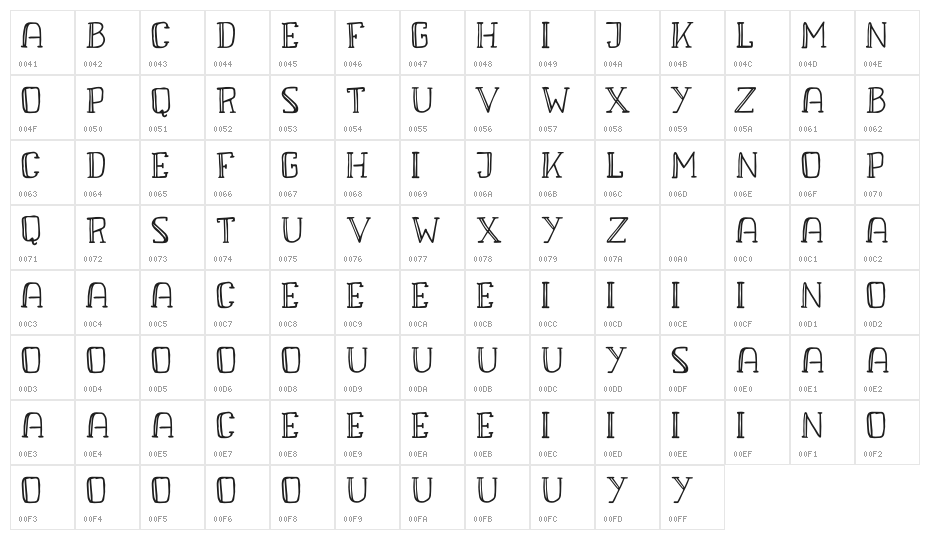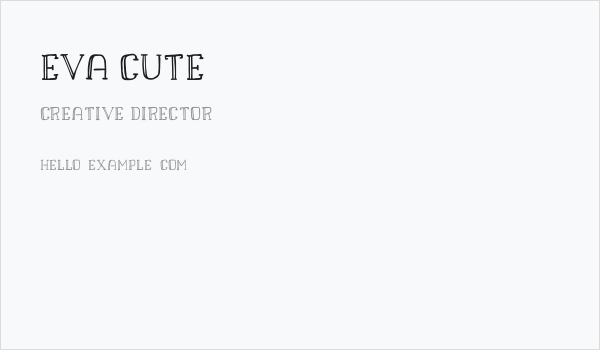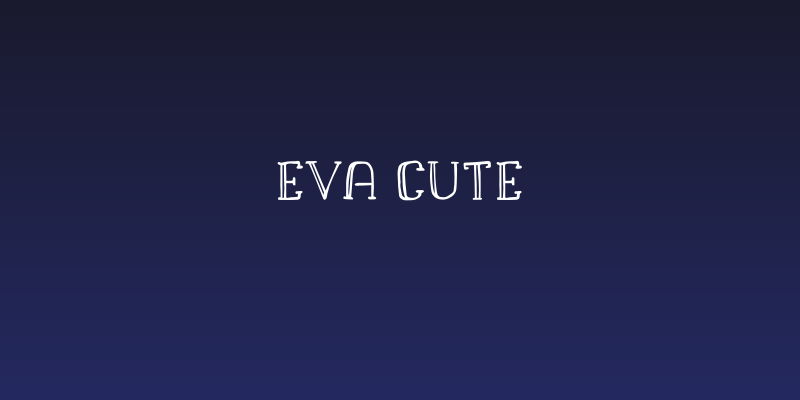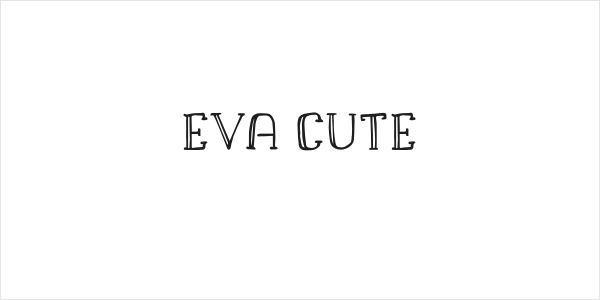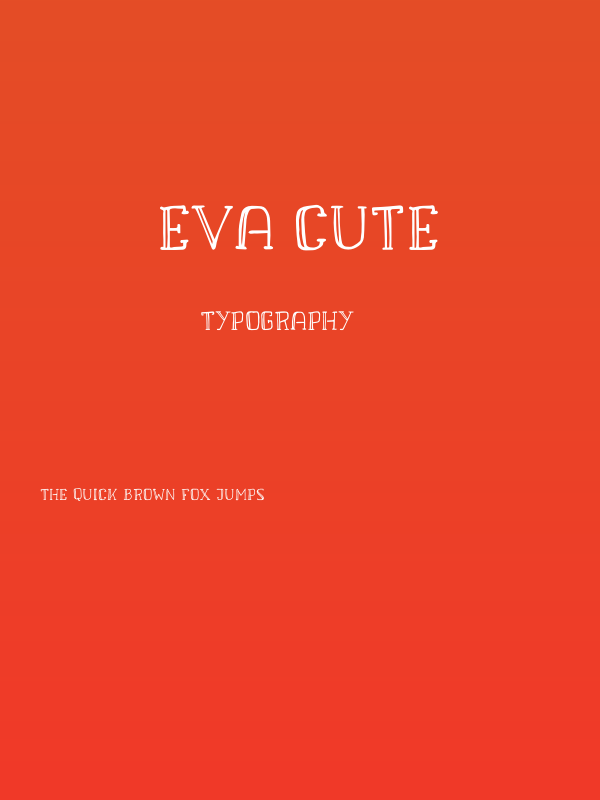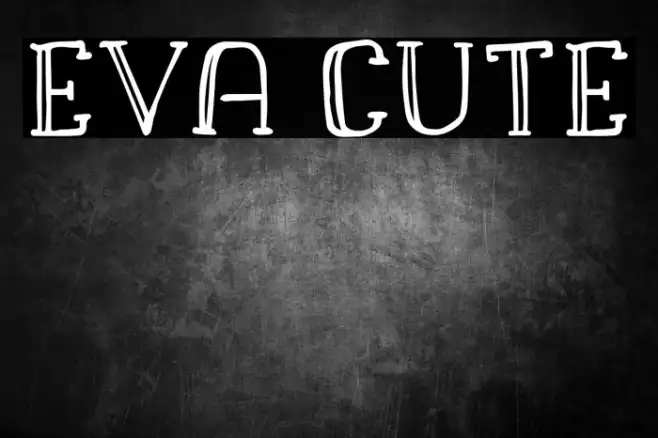
EVA CUTE Font
EVA CUTE Description
This font features a playful and whimsical design, characterized by its unique and quirky letterforms. Each character exhibits a hand-drawn quality with uneven strokes and varying line thicknesses, giving it a lively and dynamic appearance. The letters are slightly elongated with a mix of straight and curved lines, adding to its charming and informal style. The font maintains a consistent baseline, but the irregularities in the shapes provide a sense of movement and creativity. This style is perfect for projects that aim to convey a sense of fun and individuality.
| Overall Style | Whimsical |
| Proposed Projects | Ideal for children's books, playful branding, greeting cards, and creative posters. |